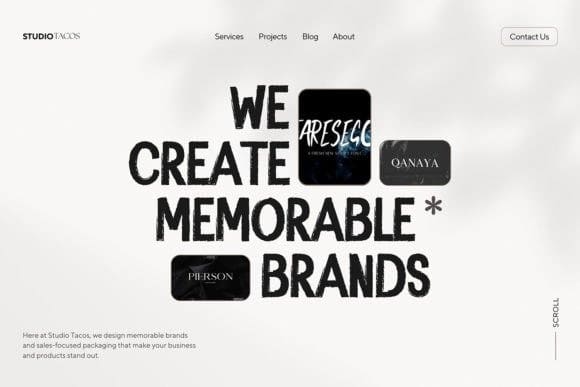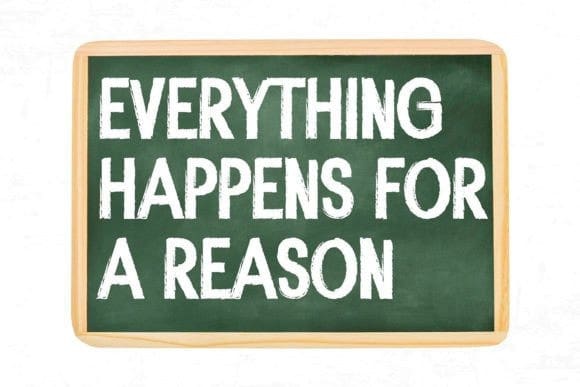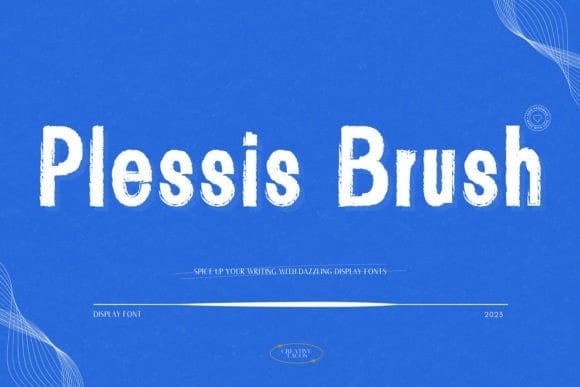
Plessis Brush Font
Plessis Brush Display Font, is a super cool typeface that adds an artistic touch to any design project. It’s got these amazing brush strokes and intricate details that make it really stand out.
Plessis Brush Display Font is like the ultimate font for everything! You can use it for packaging, slideshows, logos, headlines, lettering, posters, branding, inspirational quotes, titles, magazine layouts, website designs, ads, invites, packaging design, book covers, and basically any other creative thing you can think of. It’s seriously awesome!